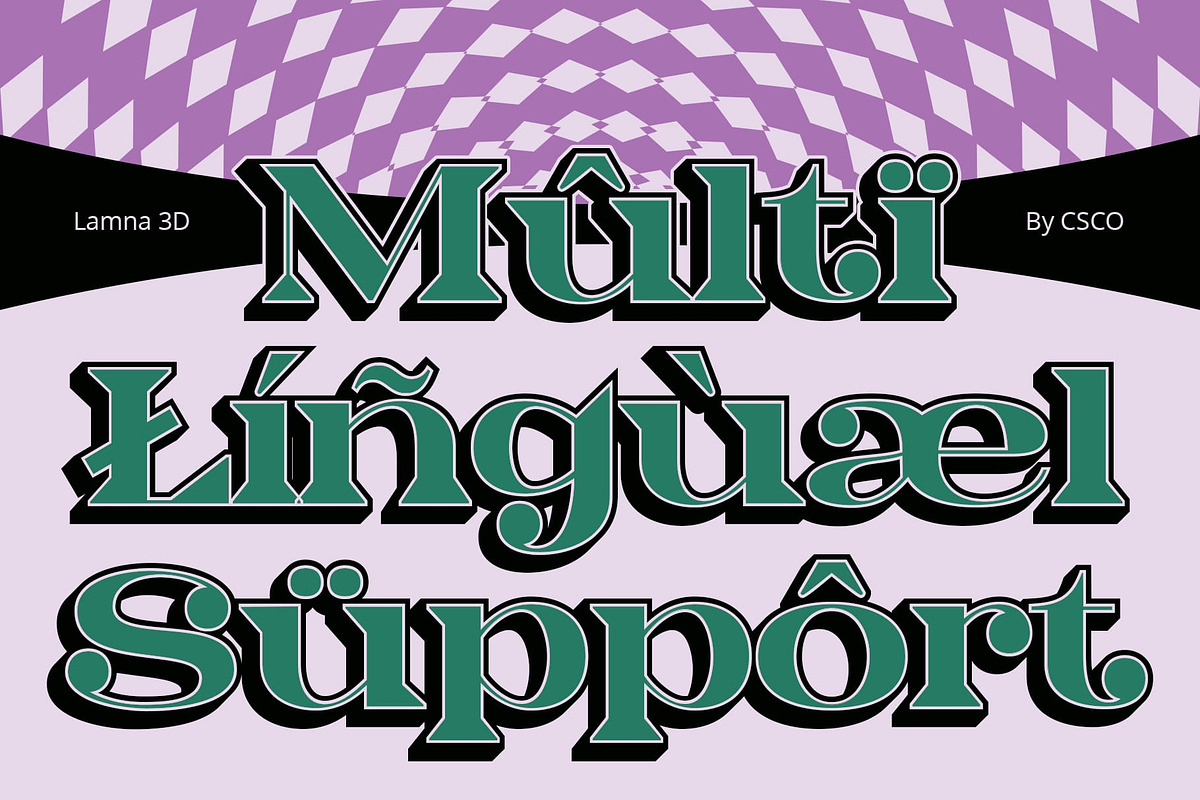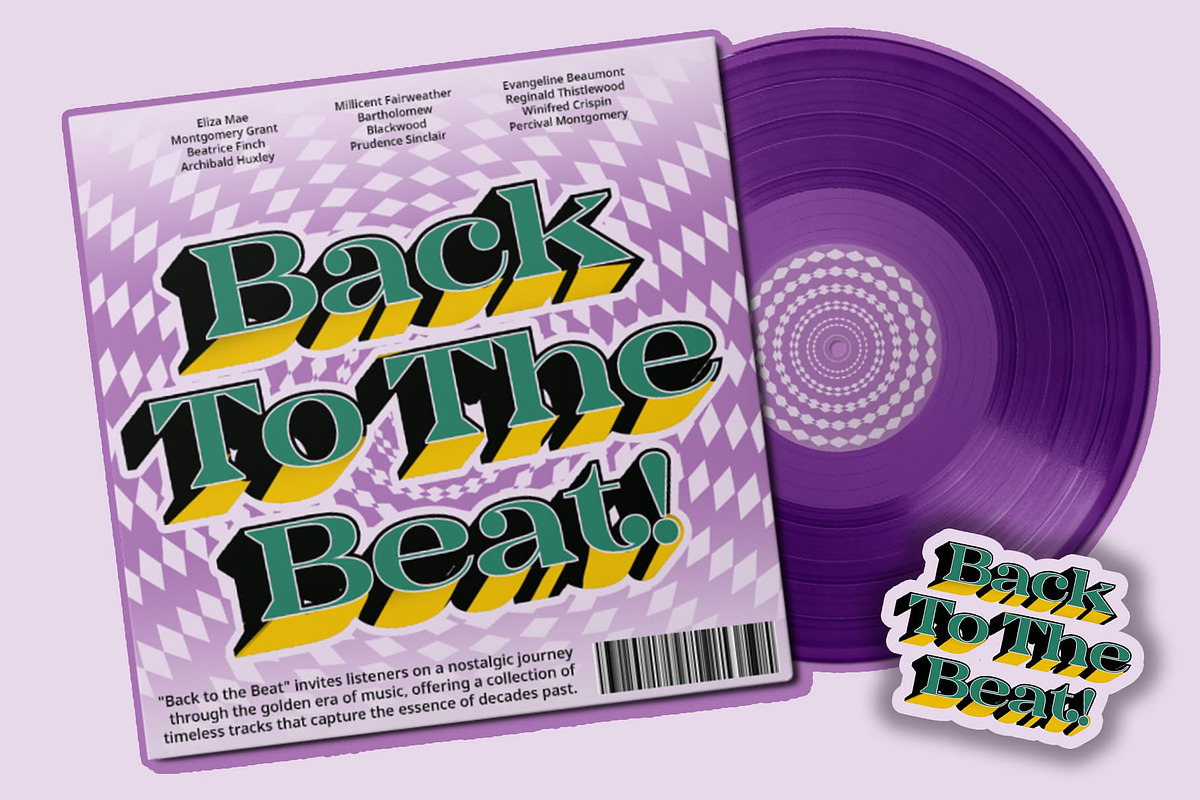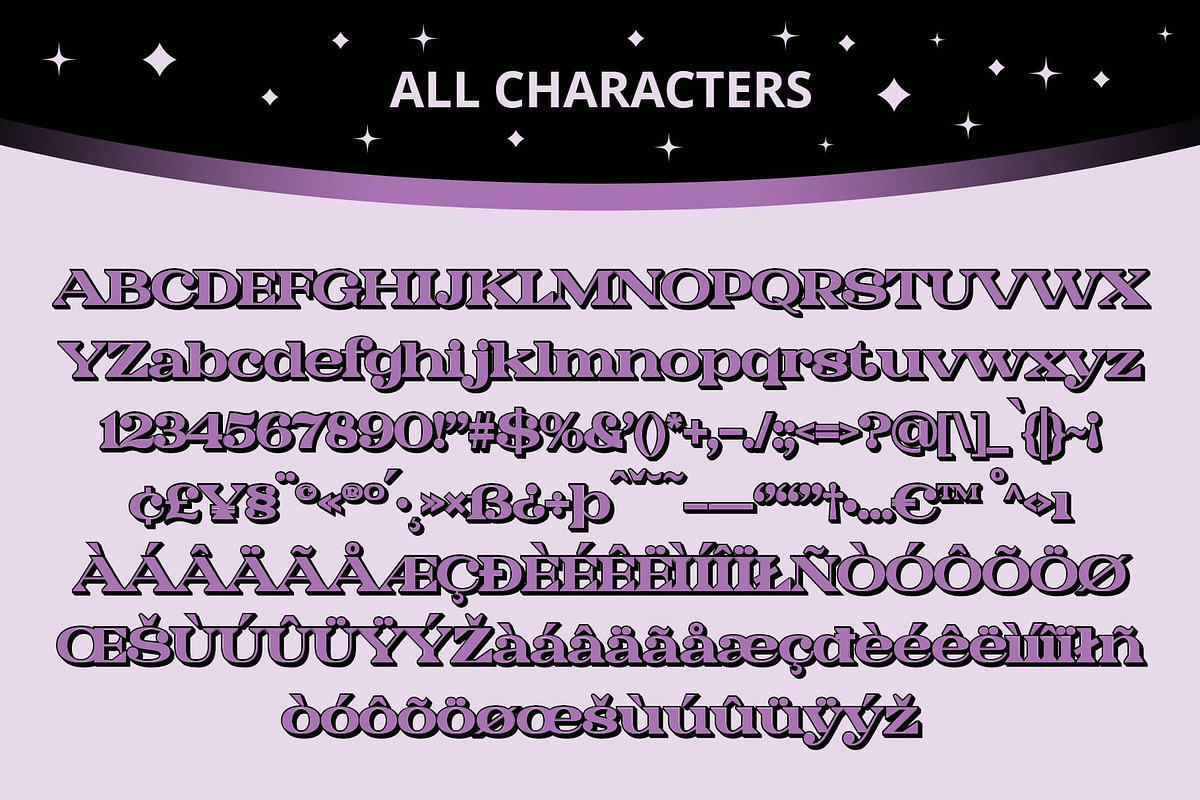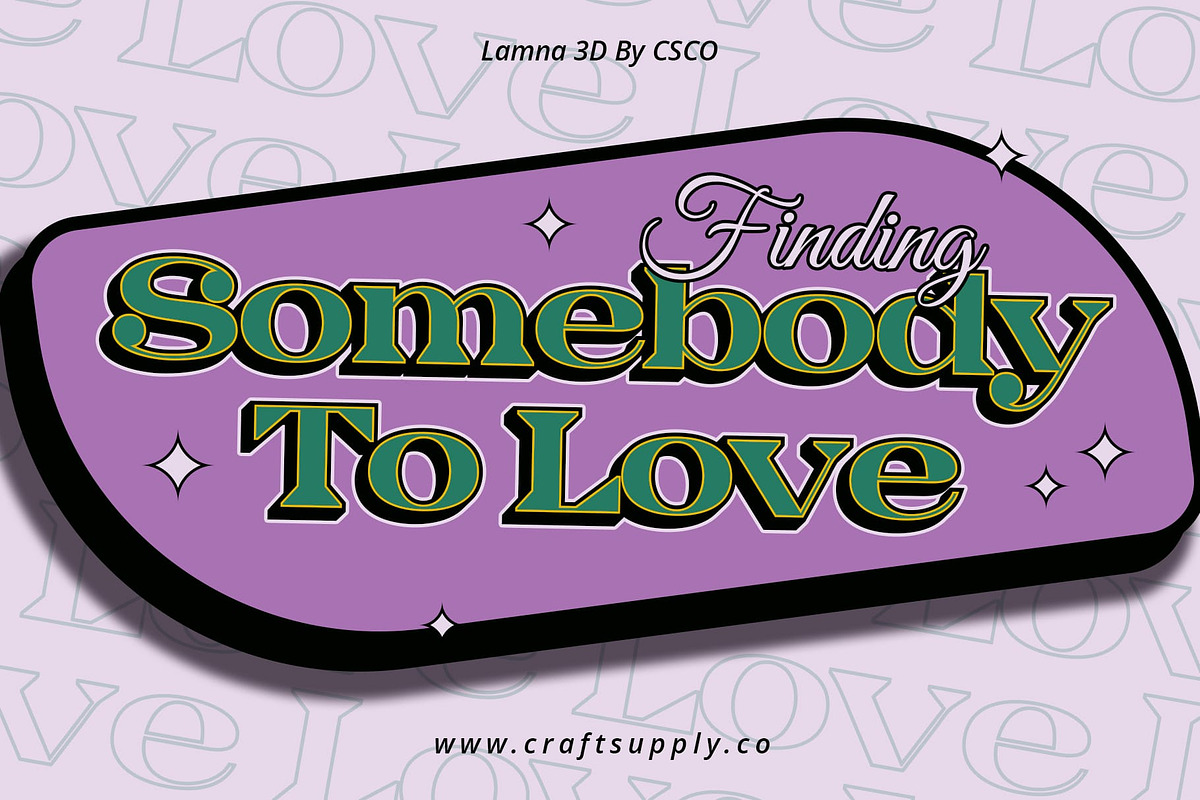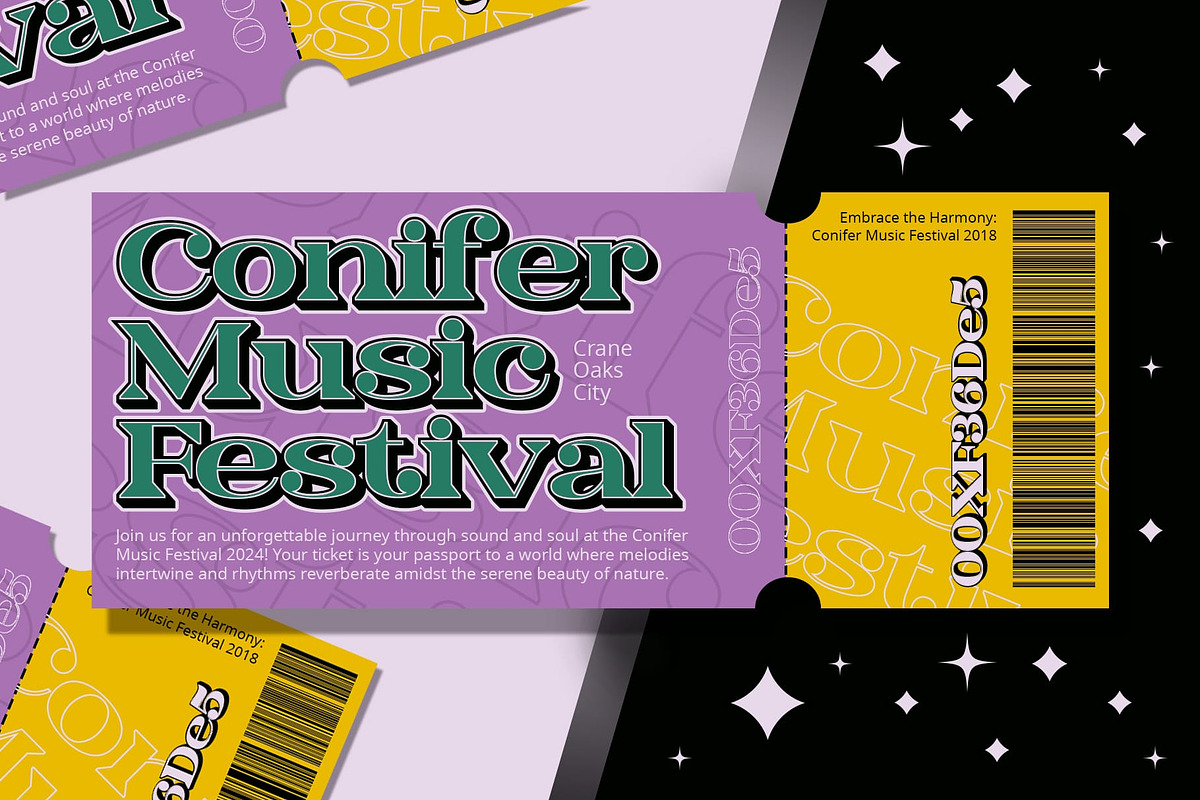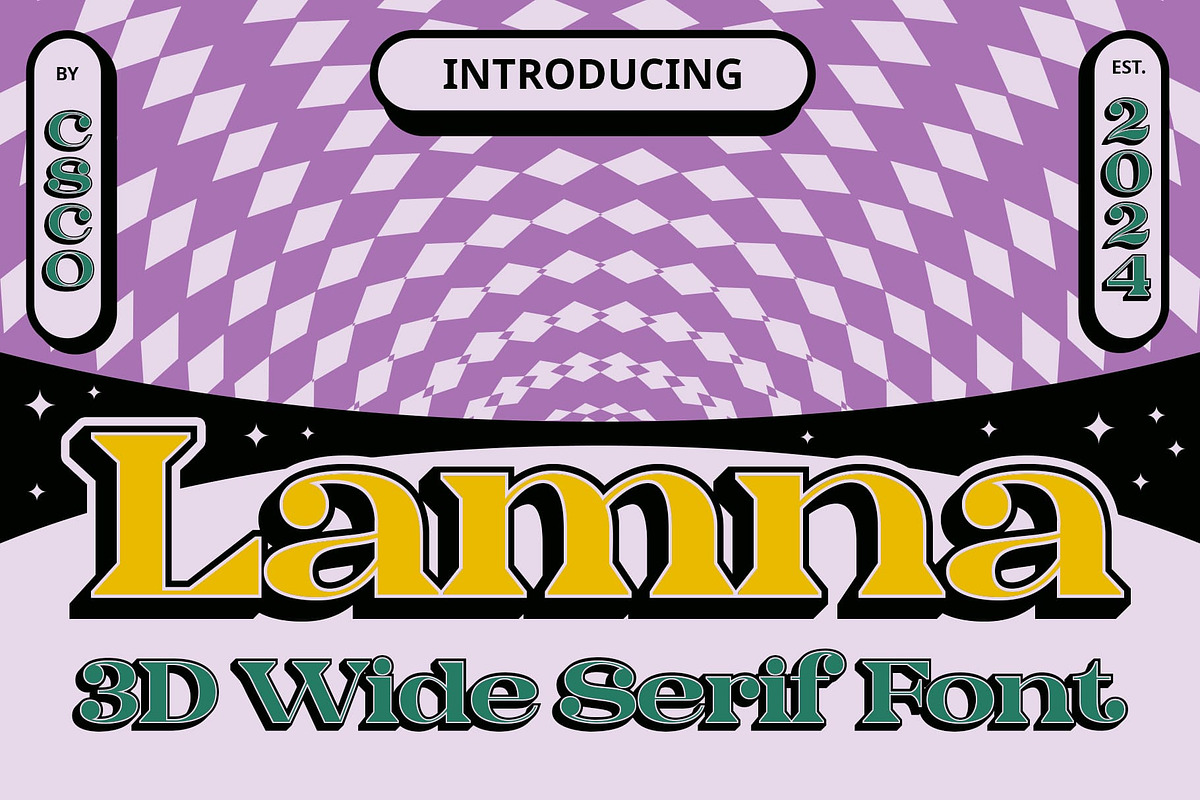
Lamna 3D
Lamna 3D: Bold Serif Wedges
Powerful Wedge Serifs Lamna 3D features assertive wedge serifs that command attention. Each character exudes strength and confidence, making it ideal for impactful designs.
Enhanced with 3D Effects The addition of 3D effects elevates This font wedges, giving them a dynamic and eye-catching appearance. The font pops off the page or screen, leaving a lasting impression.
Perfect for Standout Designs Tailored for designs that demand attention, This font excels in various applications, from headlines to branding. Its boldness ensures that your message is delivered with authority.
Versatility in Application Beyond its bold appearance, This font offers versatility in application. Whether used in print or digital media, its 3D wedges add depth and visual interest to any project.
Bold Statement This font emerges as a bold statement font with its powerful wedge serifs and striking 3D effects. Versatile yet impactful, it’s the perfect choice for designs that need to make a strong impression. Step into the world of Lamna 3D and elevate your designs with confidence and authority.